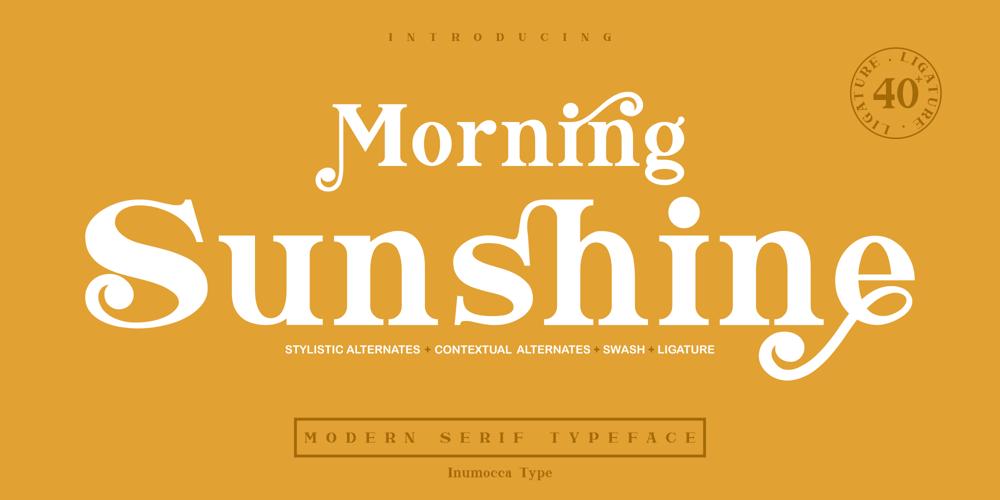
Morning Sunshine
Morning Sunshine font
Morning Sunshine Font Family was designed by Inu Mocca and published by Inumocca. Morning Sunshine contains 1 styles and family package options. Morning Sunshine Modern Serif typeface , clear and classy characterized,OpenType feature to access Ligature, contextual alternates, stylistic alternates and swash. Really playful typeface to covering your Project, like Magazine, Branding, Poster, wedding invitations, Tshirt, Logos, and more your project design. Unique glyphs Multilingual Characters UPPERCASE Lowercase Numeric Symbol Punctuation Character Ligature Contextual Alternates Stylistic Alternates Swash inumocca _type